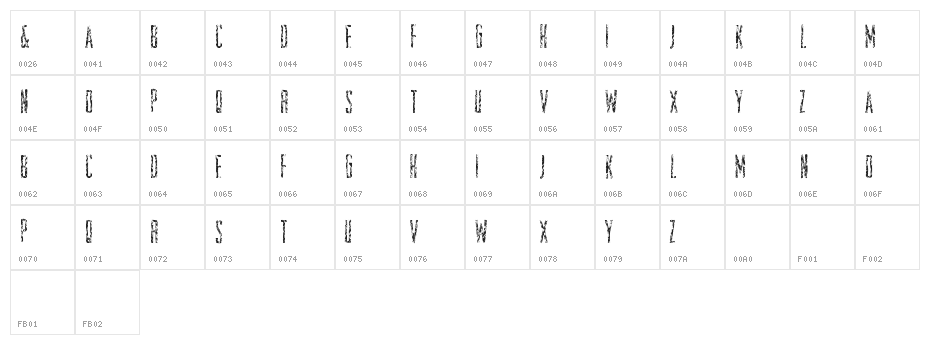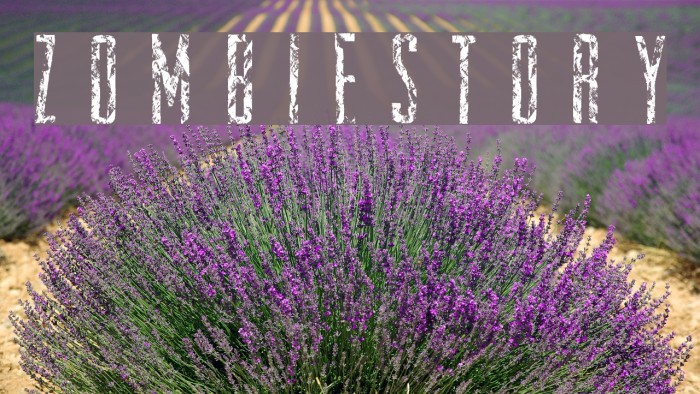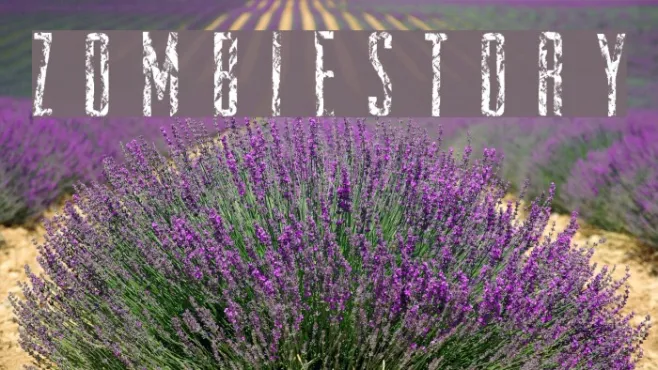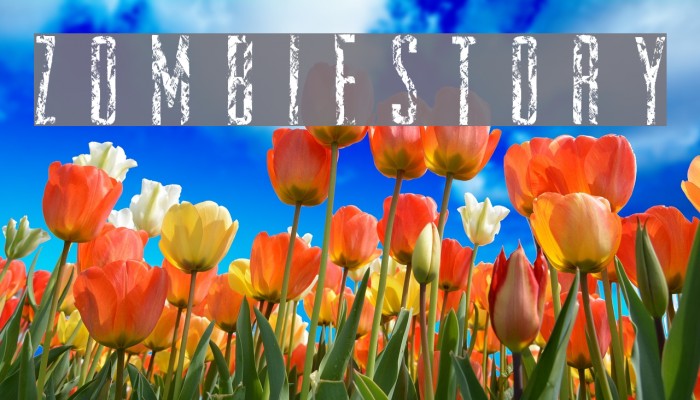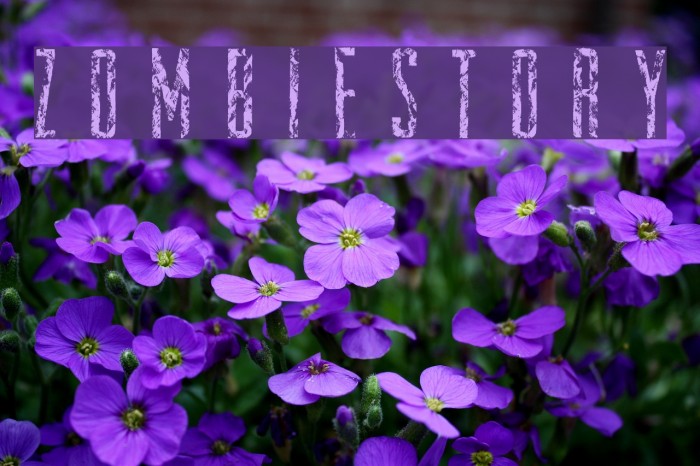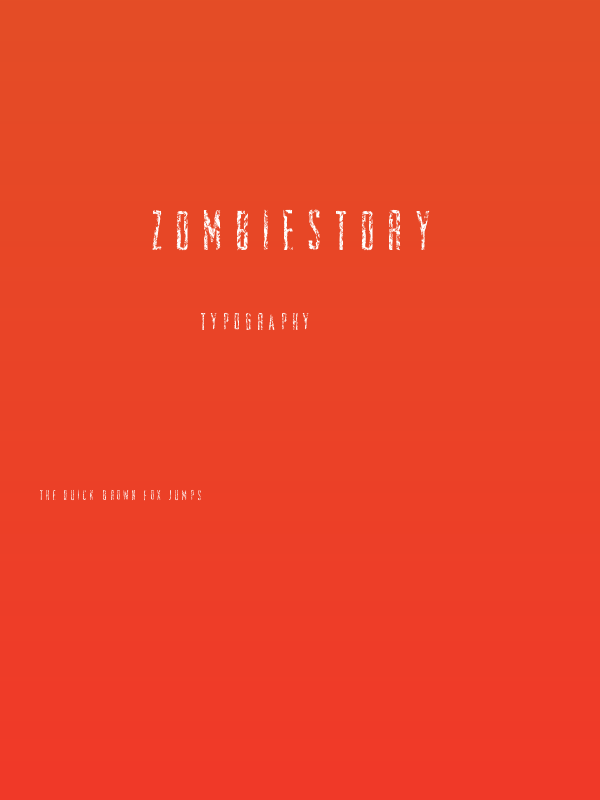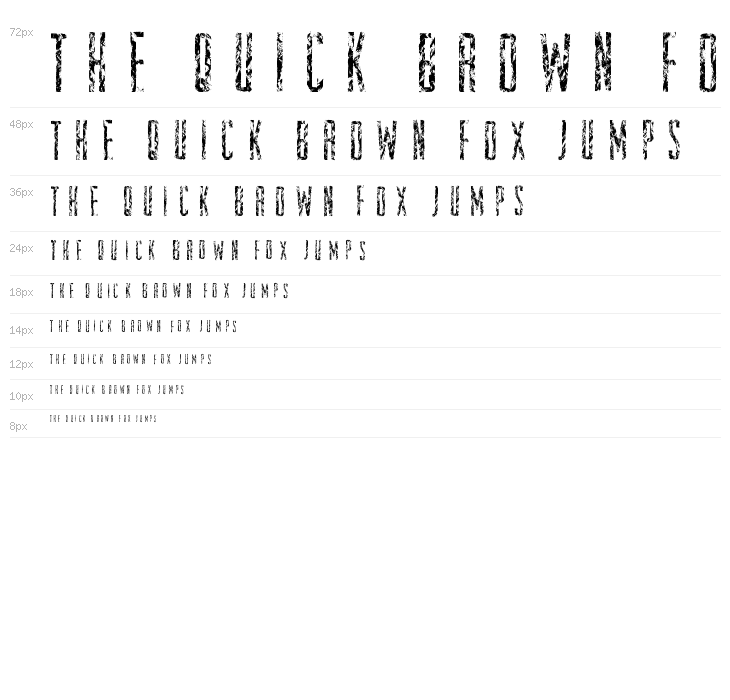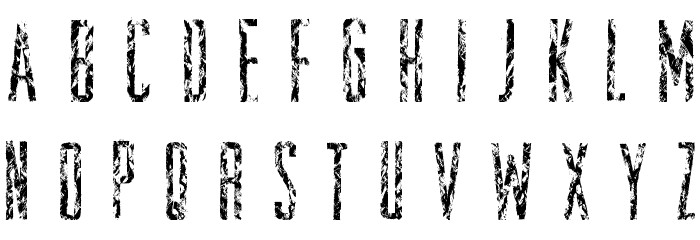
ZombieStory Font
ZombieStory Description
This font features a distressed, grunge style with a textured appearance that mimics decay or erosion. The characters are bold and elongated, giving them a striking presence. The irregular edges and rough texture suggest a theme of horror or post-apocalyptic scenarios. Each letter appears to have been weathered, adding to the overall eerie and unsettling aesthetic. The uppercase and lowercase letters maintain a consistent style, while the numbers and special characters follow the same distressed pattern, ensuring uniformity across all elements.
| Proposed Projects | Ideal for horror-themed posters, zombie apocalypse games, Halloween invitations, and any project requiring a gritty, eerie aesthetic. |